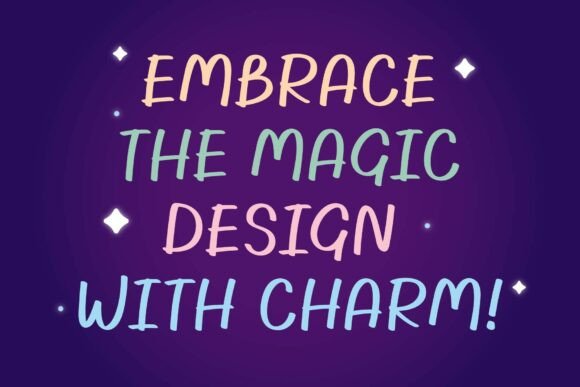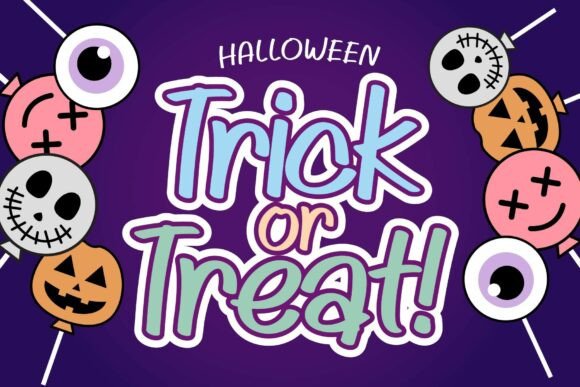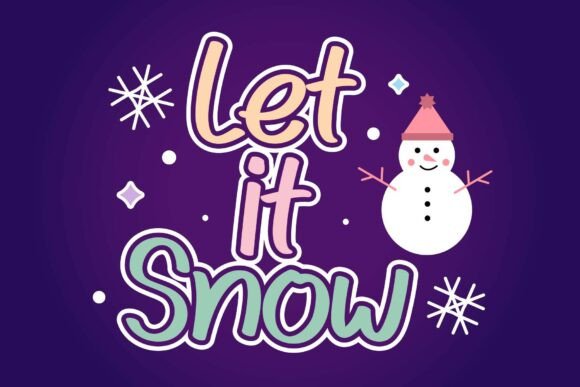
Introduction to Magic Nighty Font
Have you ever stared at a blank design canvas, desperately seeking that perfect font to bring your creative project to life? For many designers, this is a common conundrum – until now. Introducing the Magic Nighty Font, a game-changing typeface that’s about to revolutionize your design journey.
As a versatile and high-quality design resource, the Magic Nighty Font is sure to captivate your audience with its magical and nighttime-inspired aesthetics. Whether you’re creating a promotional T-shirt, a mug, or any other project, this enchanting font will add a personalized touch that sets your work apart from the rest.
With its clean curves, rounded corners, and flat fills, the Magic Nighty Font is not only visually stunning but also scalable and easy to work with. Plus, the bonus files include a mini icon set in SVG and PNG, ready for quick drop-in use or full vector editing – talk about a valuable free download!
Key Features of Magic Nighty Font
- Unique and creative design for any project, perfect for adding a touch of magic to your visual content.
Honest Review: Magic Nighty Font
I recently came across the Magic Nighty Font, a free download that has been making waves in the design community. As a designer, I was eager to put it to the test and see if it lived up to the hype.
What works well is the Magic Nighty Font’s versatility. It’s perfect for a creative project that requires a touch of whimsy and magic. The font’s unique style and intricate details make it stand out from the crowd. I also appreciate that it comes with a transparent background, which makes it easy to use on any design resource.
- ✨ Unique and intricate design
- ✨ Perfect for creative projects
- ✨ Includes transparent background
Overall, I’m impressed with the Magic Nighty Font. It’s a great resource for designers who want to add a touch of magic to their creative project. While it may have its limitations, it’s definitely worth checking out.
The Magic Nighty Font is ideal for a variety of creative projects, including digital art, graphic design, and print materials. Its high-quality and transparent background make it perfect for use in logos, branding, and packaging designs.